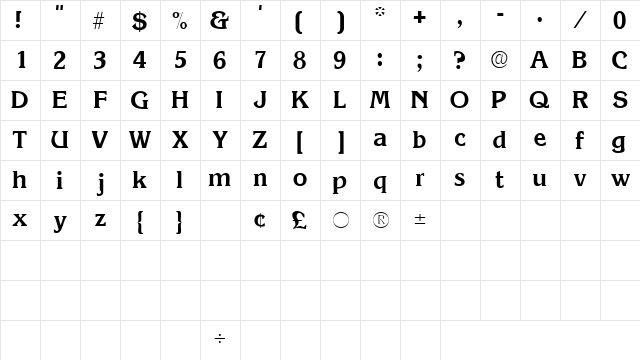
ViticaSSK Regular
Design Context for ViticaSSK Typeface
ViticaSSK takes a measured approach to typography — its balanced proportions and neutral character make it a reliable workhorse for both digital and print work.